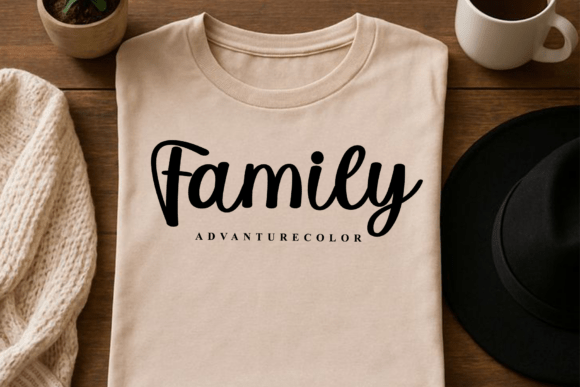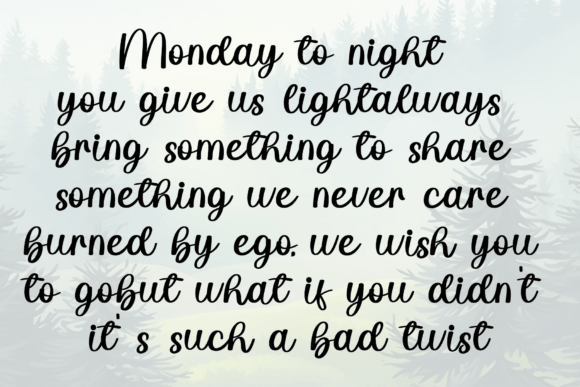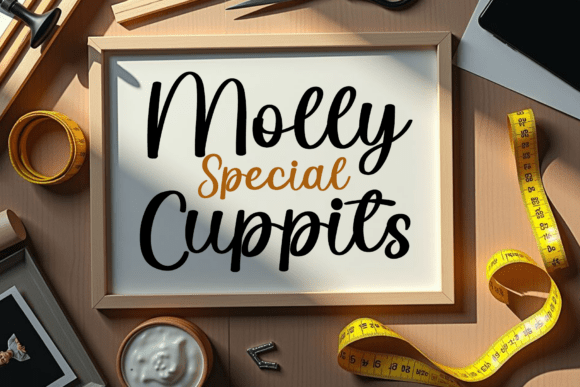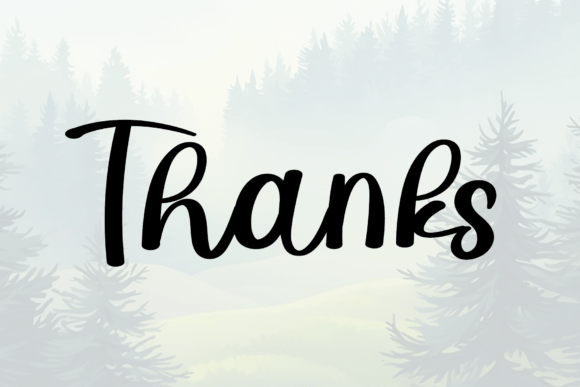
The Elusive Perfect Font: My Journey with Always Font
I’ll never forget the struggle I faced while working on a branding project for a local artisanal bakery. My client wanted a font that exuded warmth, sophistication, and a touch of handcrafted charm. I scoured the internet, tried countless fonts, but nothing seemed to fit the bill. That was until I stumbled upon Always Font. ✨
As I explored its features and characteristics, I knew I had found the perfect match. In this article, I’ll share my experience with Always Font, its unique features, and provide a comprehensive guide on how to make the most of this beautiful script font.
An Honest Review of Always Font
- ✨ Sophisticated and rhythmic script style that balances calligraphy with a warm, organic aesthetic
- ✅ High-contrast visual rhythm with thick, grounded downstrokes and delicate hairline connectors
- ✅ Sweeping, looping ascenders that create a sense of customized, artisanal artistry
- ✅ Perfect for artisanal food branding, boutique product packaging, upscale lifestyle marketing, and creative editorial titles
While Always Font is an exceptional typeface, there are a few minor quirks to be aware of: 🤔
- ⚠️ Some users may find the font’s high-contrast style challenging to read at small sizes
- ⚠️ Limited use of uppercase letters, which may require creative workarounds for certain design applications
The Story Behind Always Font
Always Font was designed by a renowned type foundry with a passion for creating unique, handcrafted typefaces. The designer’s inspiration came from traditional calligraphy and hand-lettering techniques, combined with a desire to create a modern, versatile font that would appeal to creative professionals. 💡
The design process involved meticulous attention to detail, with a focus on crafting a font that would balance elegance with playfulness. The result is a truly distinctive typeface that adds a touch of sophistication and whimsy to any design project.
Q: What is the best way to use Always Font in a logo design?
A: Always Font is an excellent choice for logo design, especially for artisanal food, boutique products, and upscale lifestyle brands. Use it as a standalone element or combine it with simple shapes and icons to create a unique visual identity.
Q: Can I use Always Font for body text?
A: While Always Font is a beautiful typeface, it’s best suited for headlines, titles, and short paragraphs. Its high-contrast style and elegant swashes may not be ideal for lengthy body text, where readability is crucial.
Q: Is Always Font suitable for digital applications?
A: Yes, Always Font is optimized for both print and digital use. Its clear, elegant lines and balanced proportions make it an excellent choice for website headers, social media graphics, and email marketing campaigns.